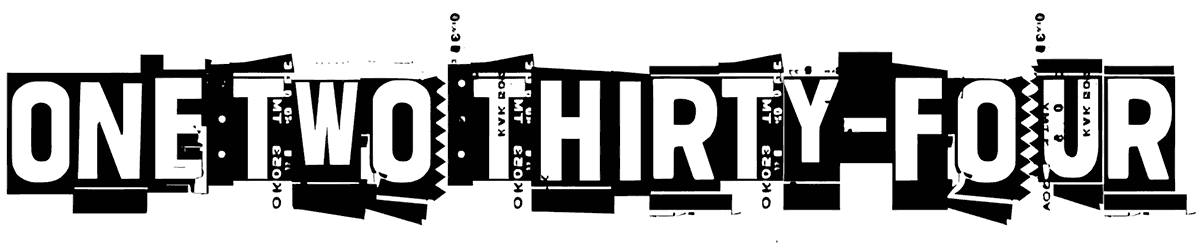
Rookie Punk Font
Here we come again to introduce you to Rookie Punk, a unique all-caps punk font that comes with tilted and crooked characters, thus you can count on this masterpiece for your illustrations, street posters, digital brochures, or graffiti. If your first priority in designing graphic content is establishing a sense of jauntiness, eerie, grunge, or disorder, Rookie Punk would be really ideal.
Rookie Punk is a peculiar display font, inspired by grunge and punk. It has bold glyphs that make your text more noticeable. It will look great for title texts, campaign posters, and pretty much anything that requires a unique touch!